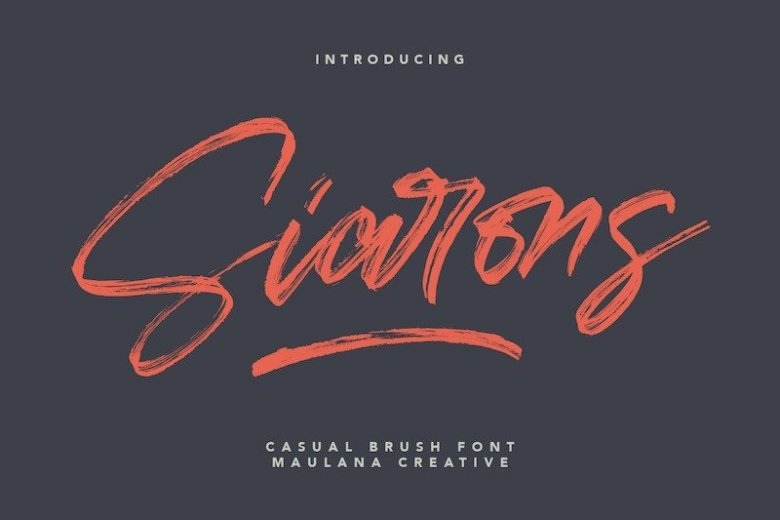
Siarons Font
Siarons Brush Font is an exciting hand-drawn typeface created by Maulana Creative with brush style. This beautiful script can make your text appear elegant, luxurious, and modern!
Siarons is perfectly suited to signature, stationery, logo, typography quotes, magazine or book cover, website header, flyer, clothing, branding, packaging design and more.